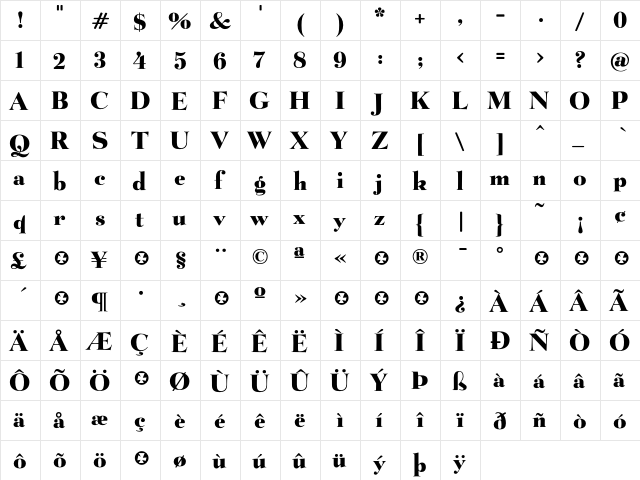
BeLucian Ultra
Design Context for BeLucian Typeface
BeLucian offers clean, dependable letterforms without strong stylistic allegiance, making it a practical choice for designers who need flexibility.